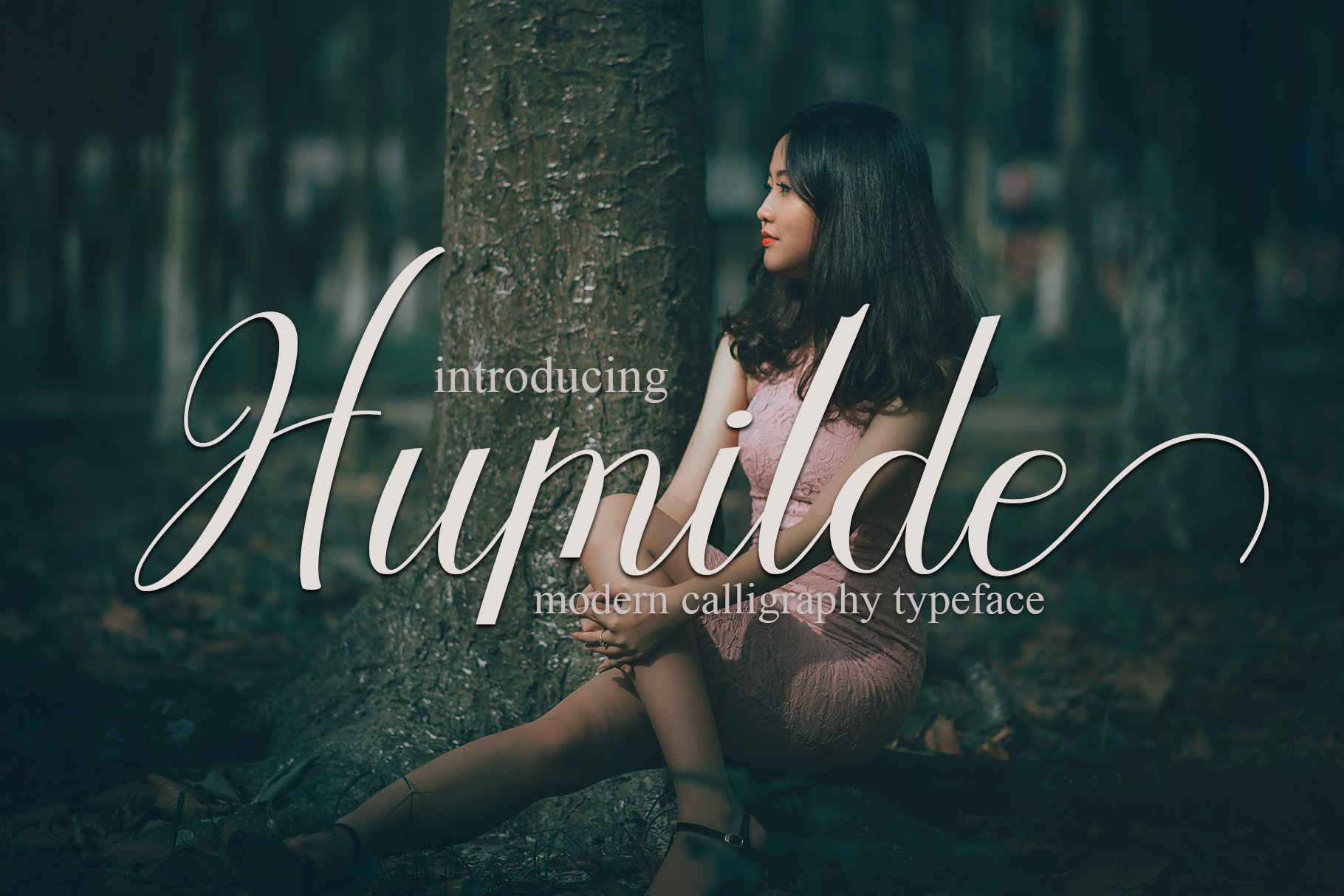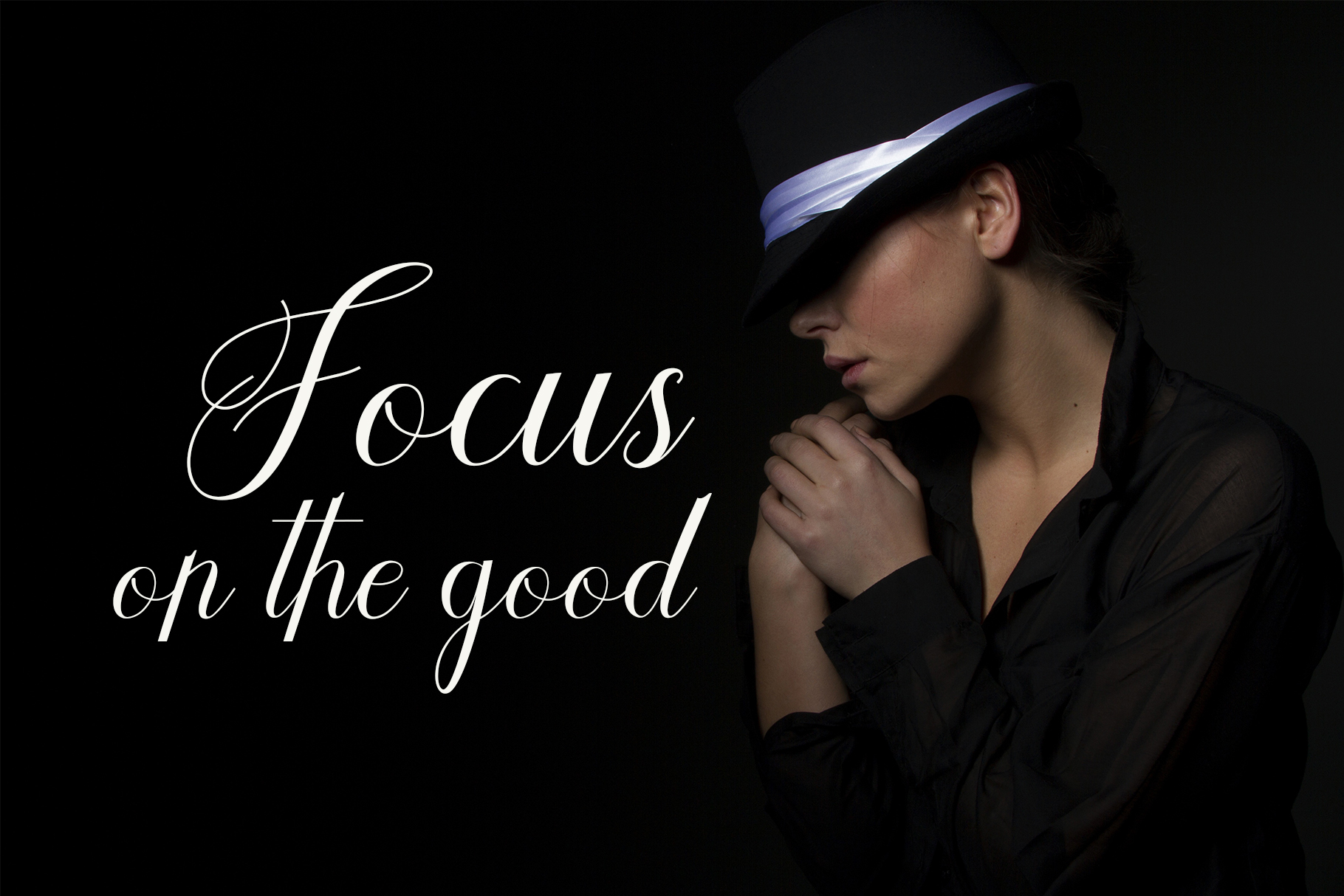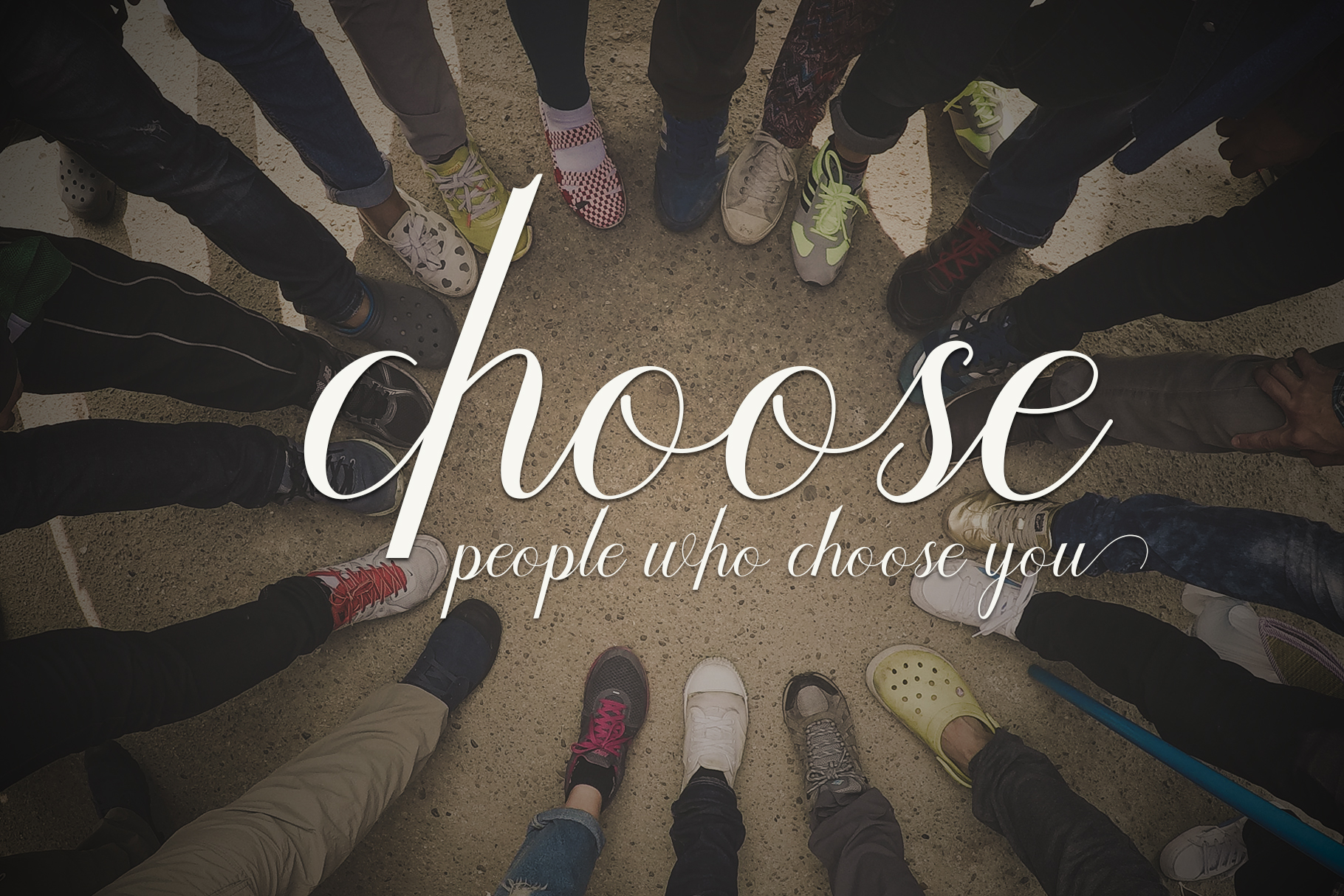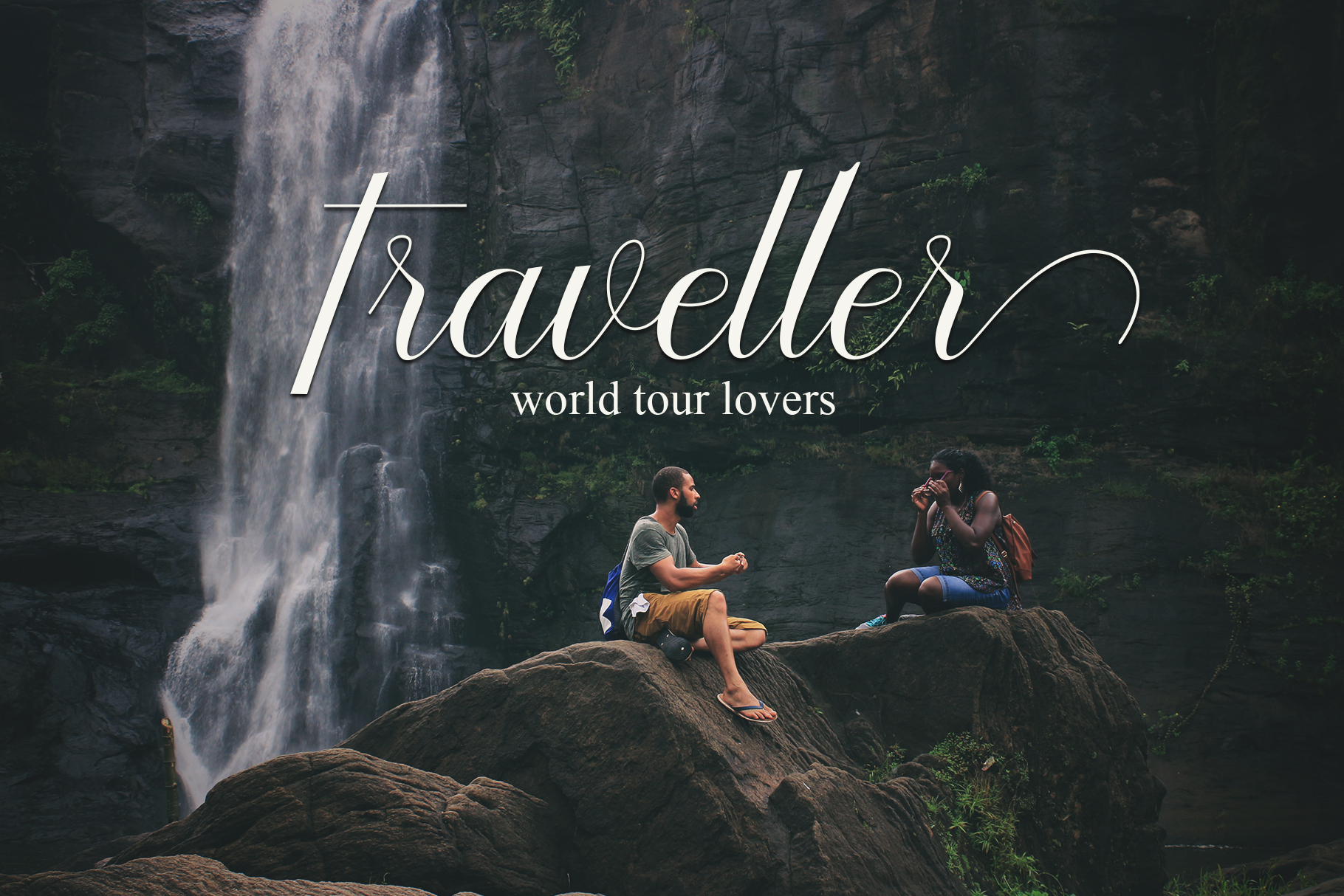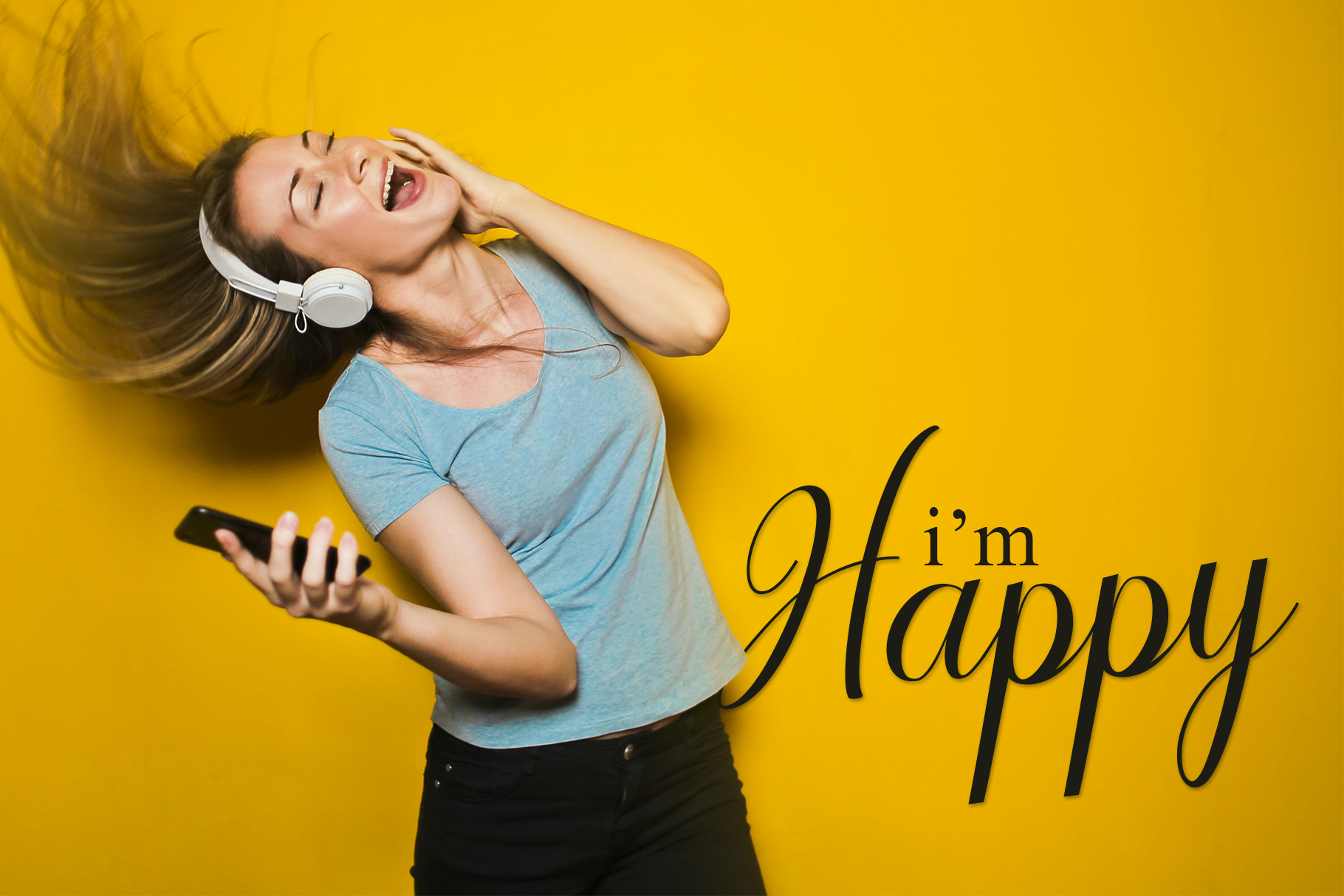
About Humilde Font
Humilde is a sweet and friendly script font, handwritten to give an authentic feel to your designs and creative projects. This font comes with tons of alternates, giving you the ability to maximize your project’s design potential.